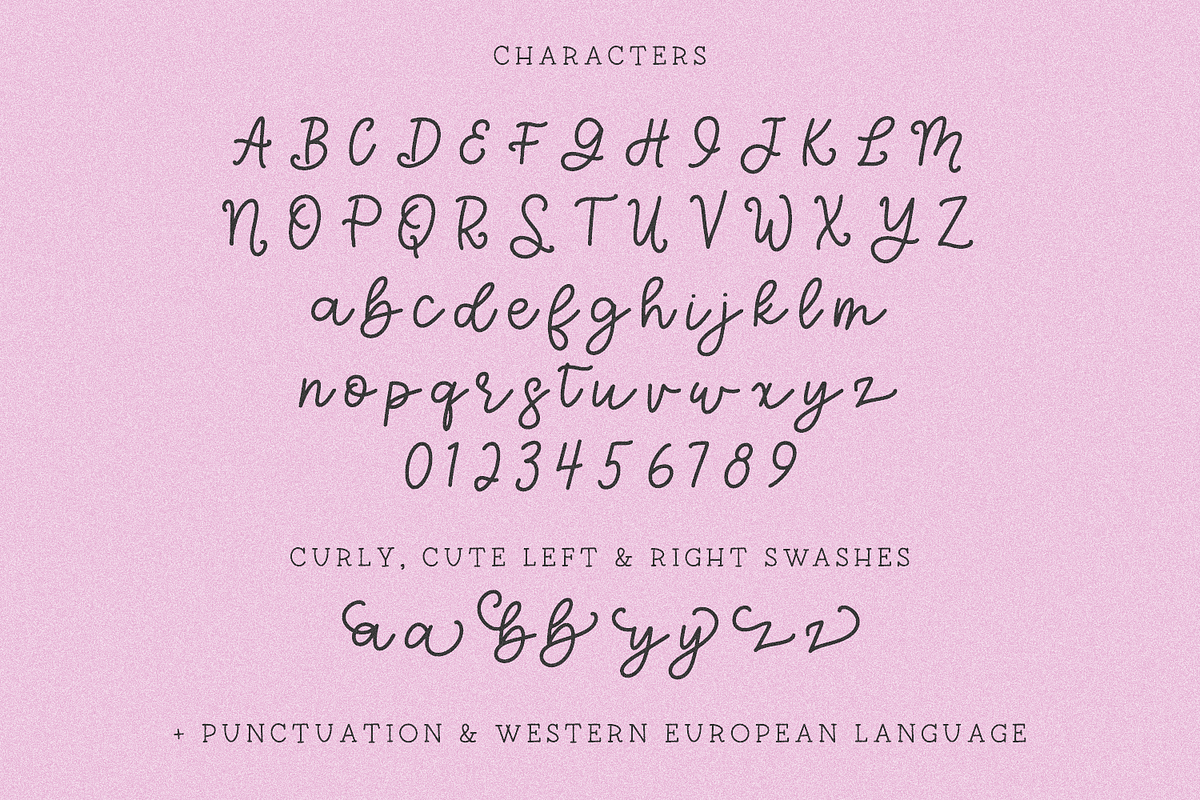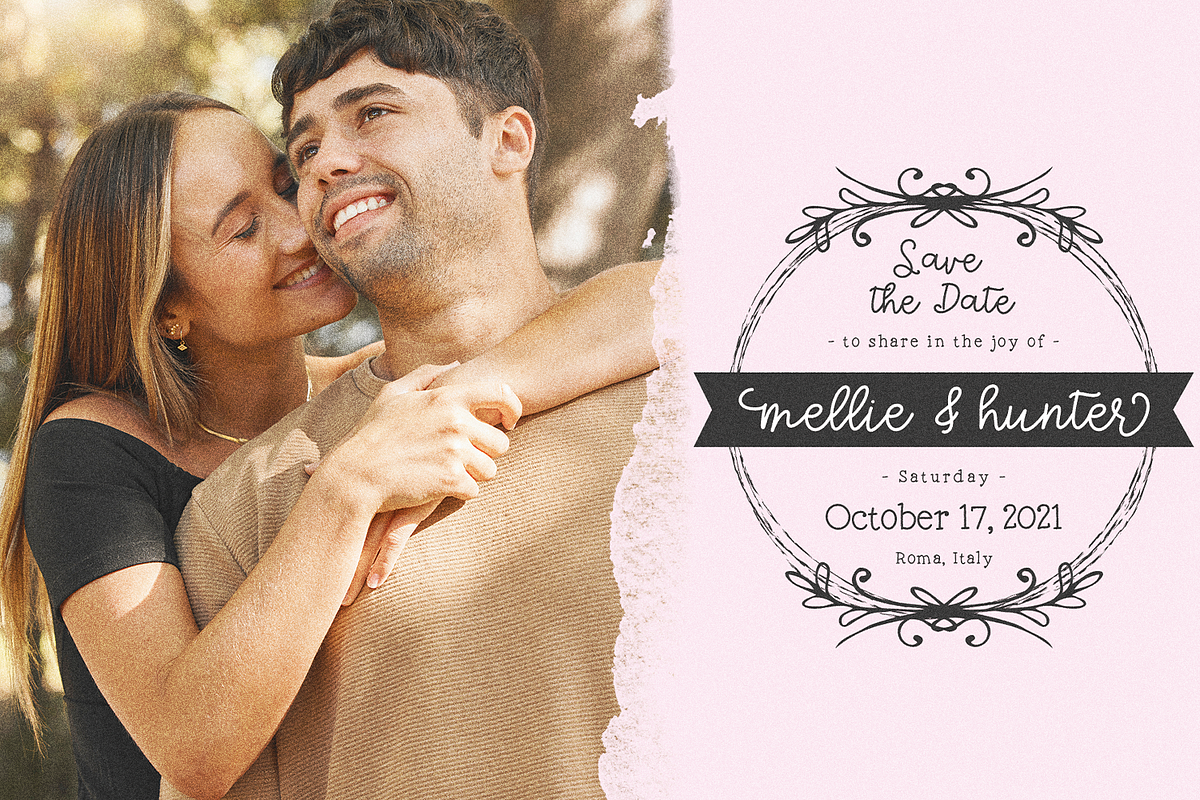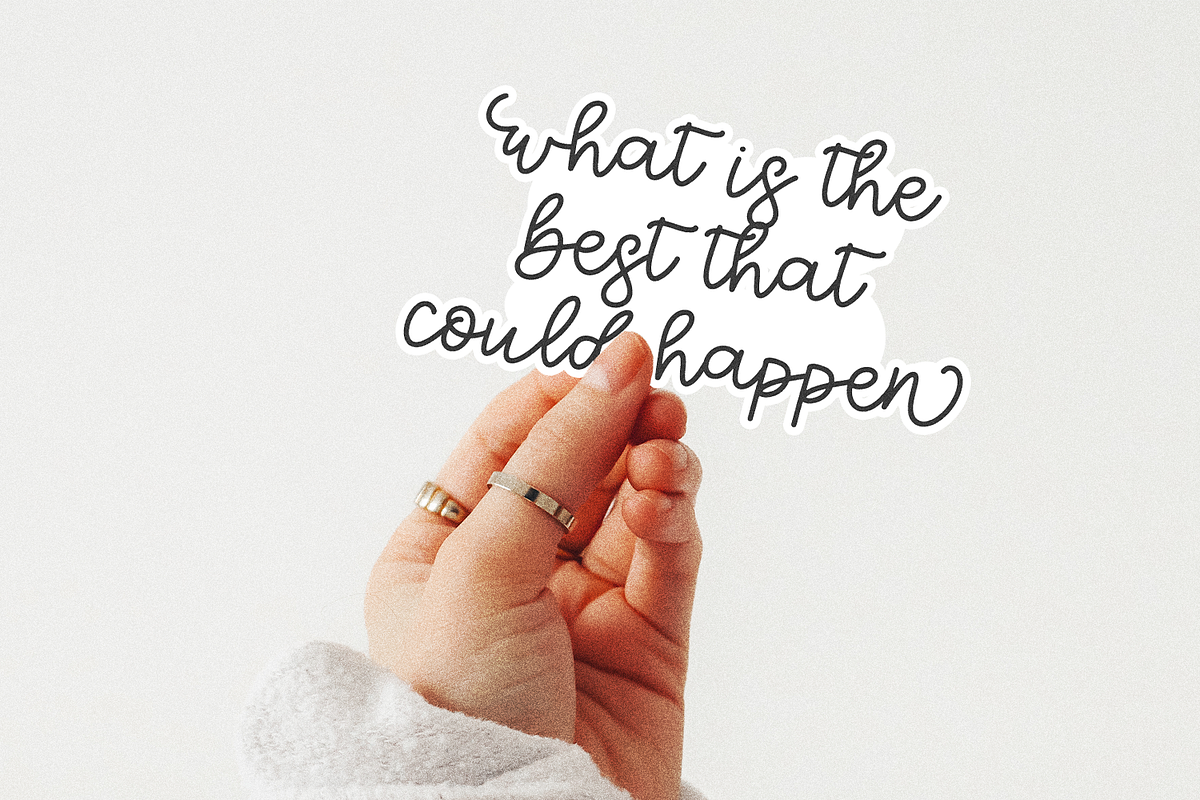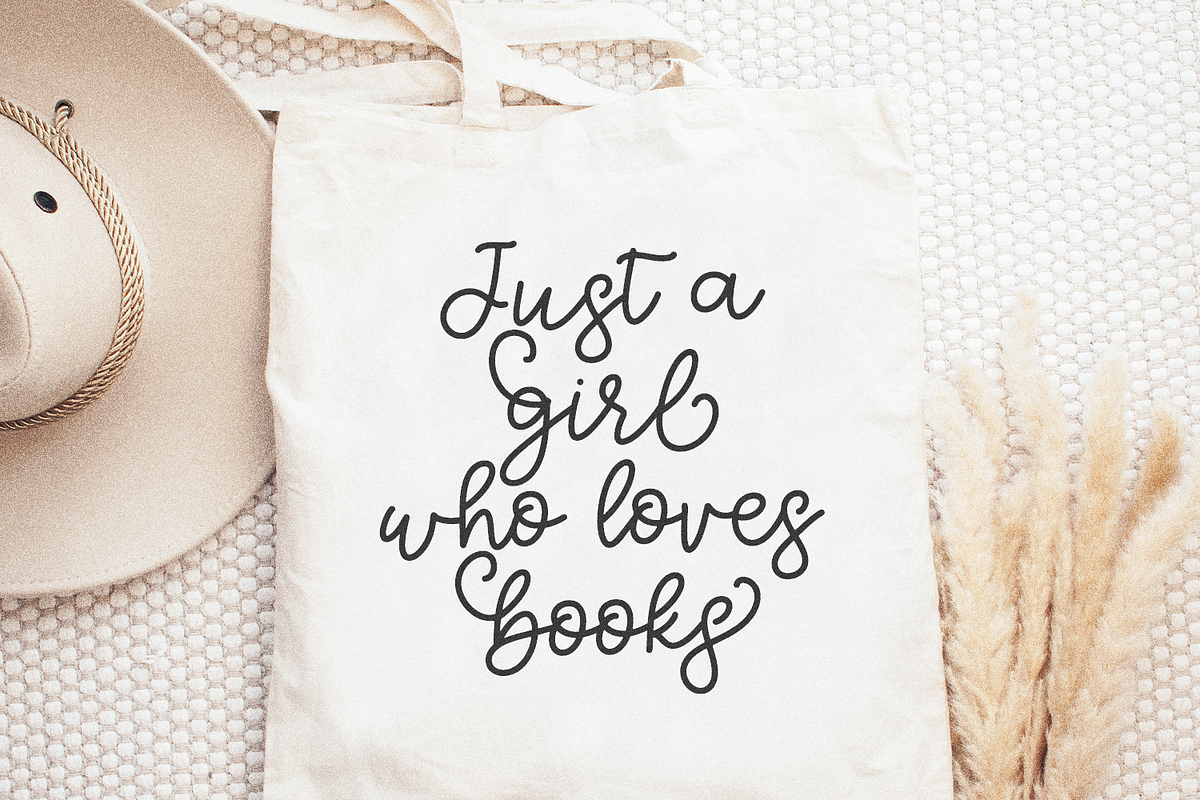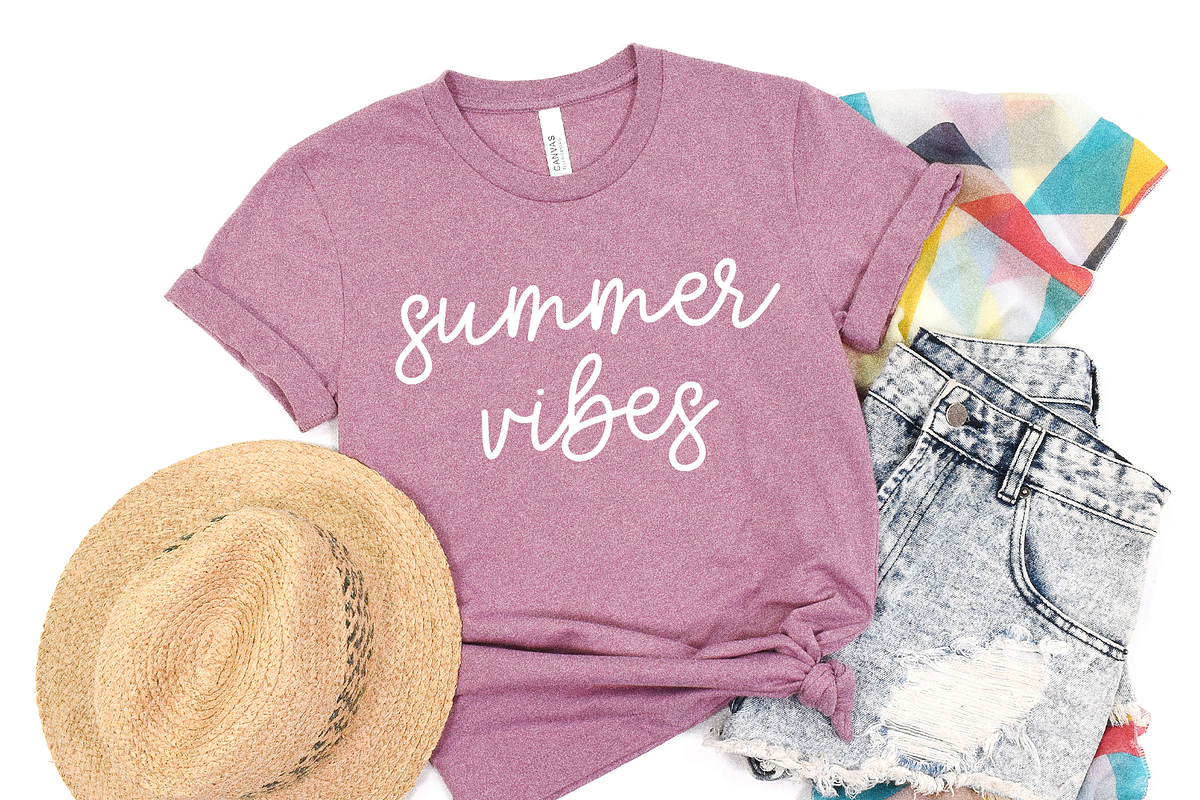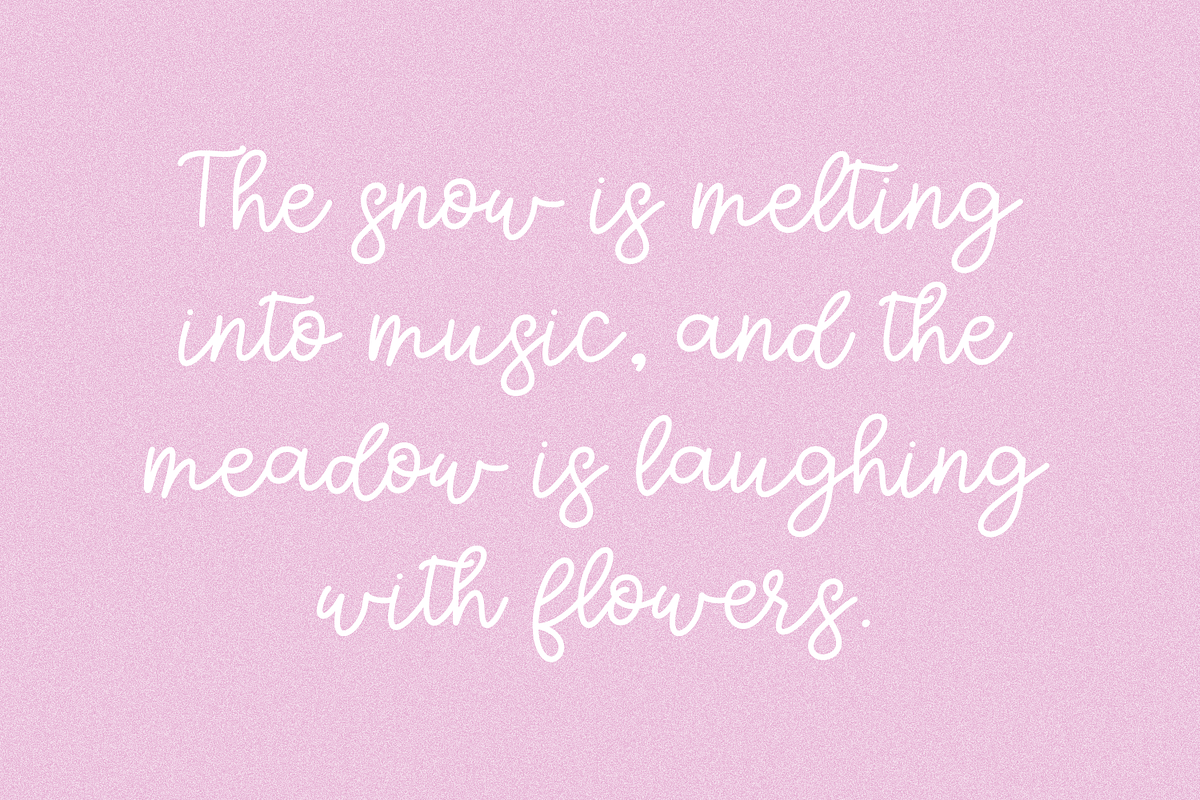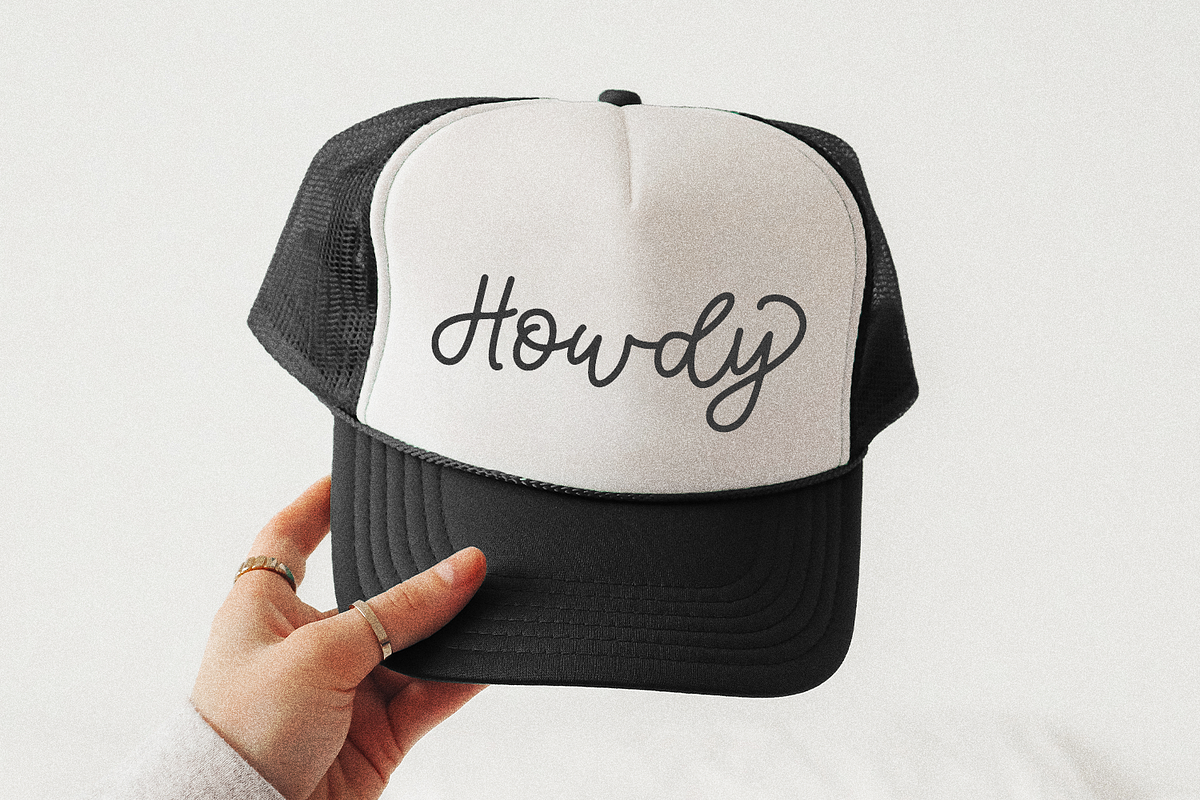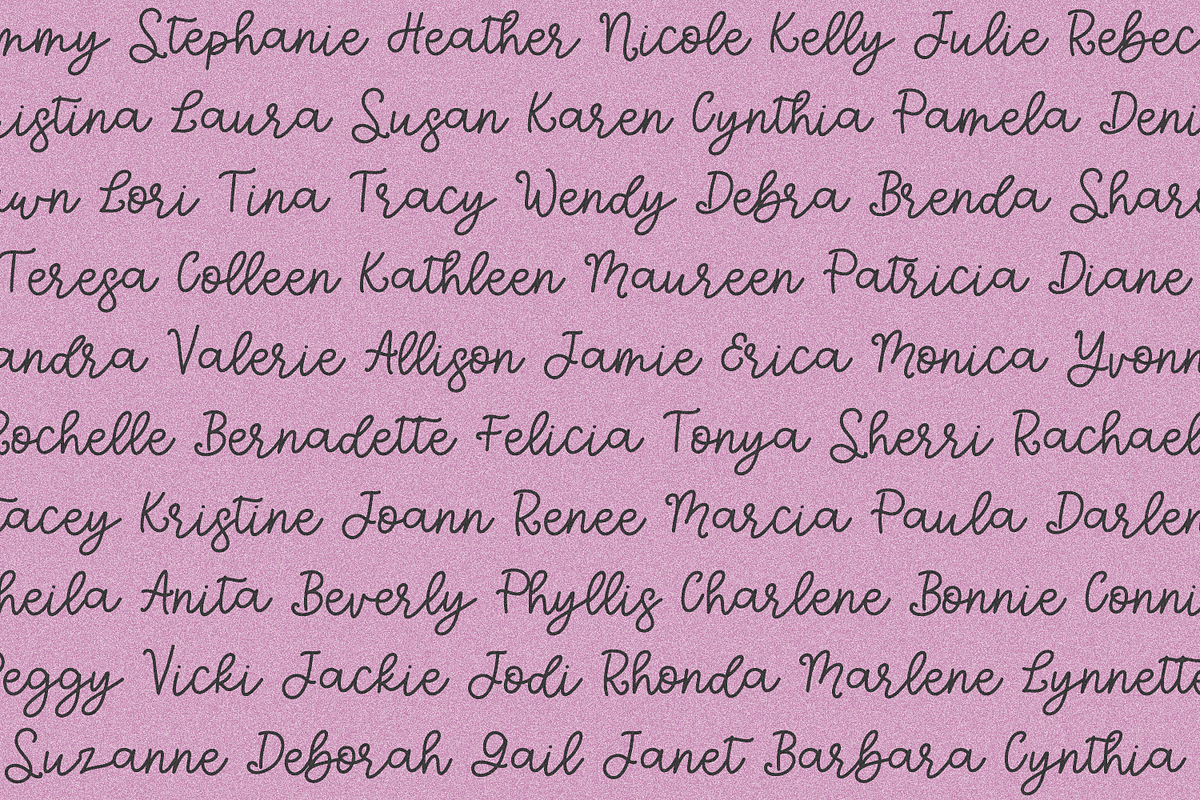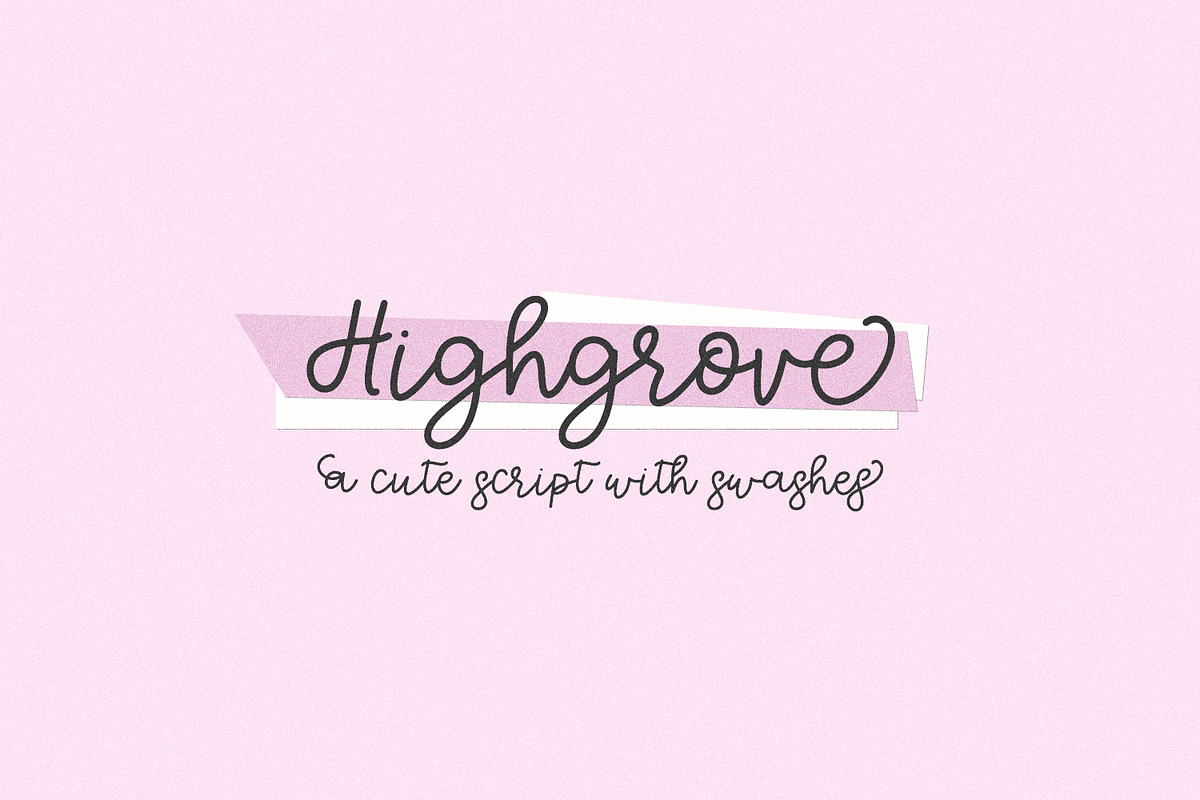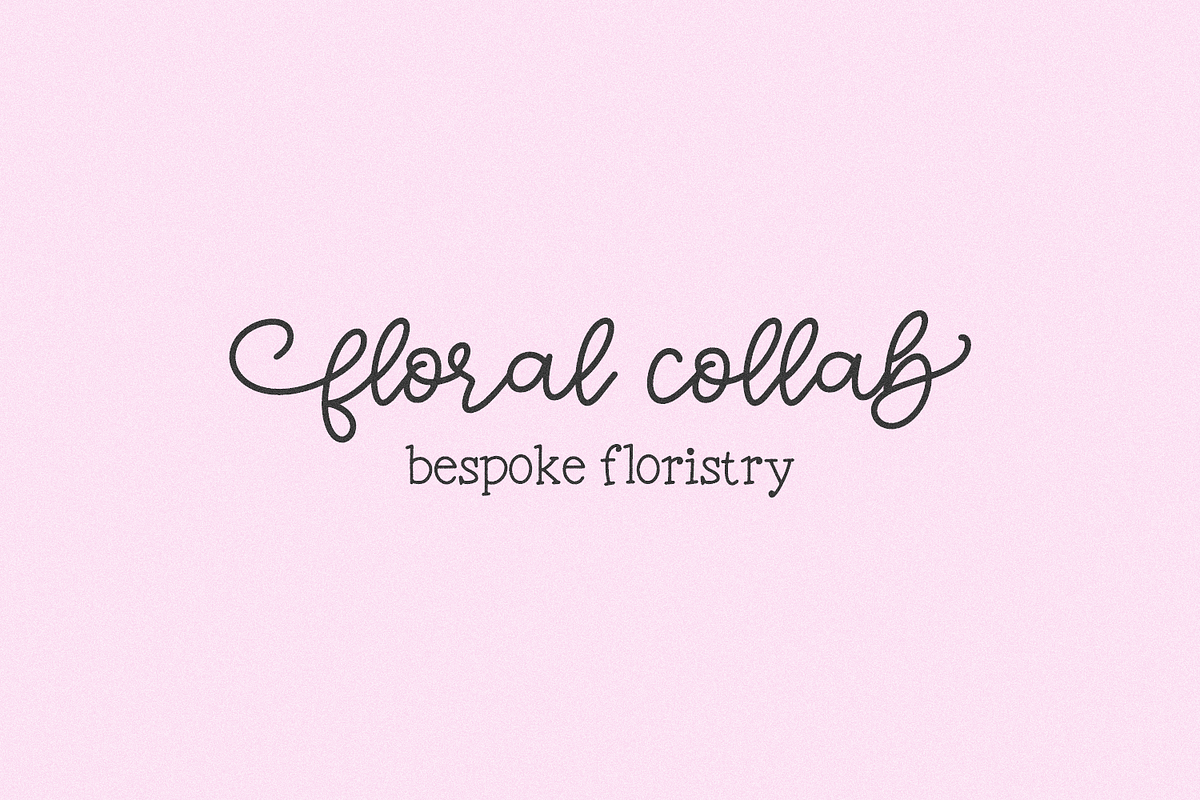
Highgrove Script
Highgrove is a modern calligraphy font. Highgrove Script has clean, thin lines, and also includes swashes! This font is perfect for logos & branding, greeting cards, painted banners, digital planners, note-taking apps, Canva, Cricut projects, Silhouette projects, designing SVG files, laser cutting projects, & more.
Highgrove Script includes:
- full upper + lowercase characters
- numbers + punctuation
- 1 full set of left & right swashes for lowercase characters
- Western European language support - English, French, Spanish, Portuguese (Brazil), Portuguese (Portugal), Italian, German (Germany), German (Austria), Dutch, Danish, Swedish, Norwegian (Bokmål and Nynorsk), Finnish, Icelandic, Irish, Welsh